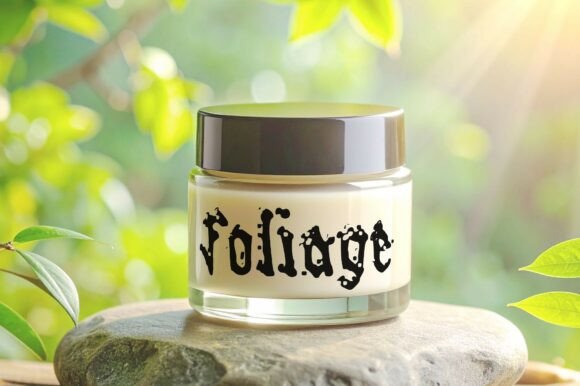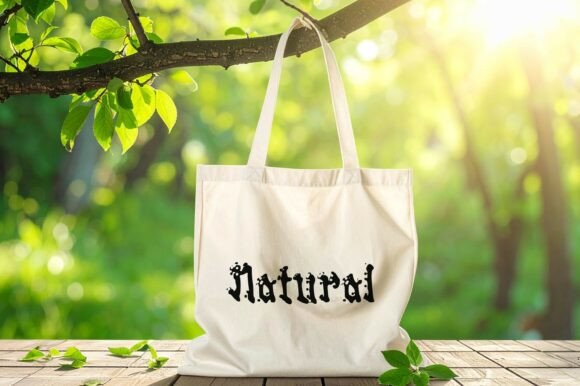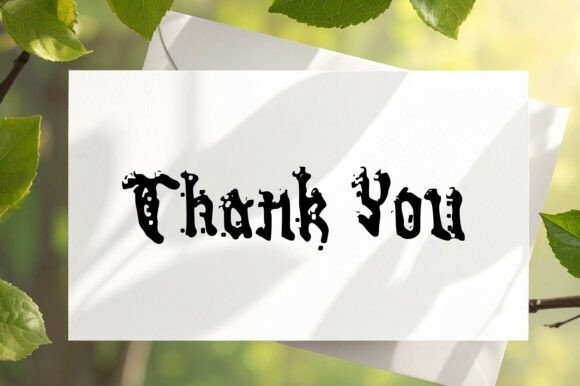
Introducing Cabang Berdaun Font: A Harmonious Blend of Modern Elegance and Natural Sophistication
In the realm of typography, few fonts manage to capture the essence of nature’s serenity and charm as effectively as the “Cabang Berdaun” font. This delectable fusion of sprightly modern flair and earthy sophistication brings to life the intricate beauty of leaf-strewn boughs, representing the exquisite curves and gentle lines that thrive in the heart of the woodlands. Whether you’re a seasoned designer or a novice venturing into the creative space, “Cabang Berdaun” is poised to become an indispensable asset in your design toolkit.
A Design Inspired by Nature
The “Cabang Berdaun” font draws its inspiration from the mesmerizing beauty of branch-strewn leaves, meticulously capturing the organic elegance that defines the natural world. Each glyph is a masterful blend of fluid lines and delicate curves, evoking a sense of tranquility and refinement. The font’s design is not merely about aesthetics; it’s about conveying a sense of harmony and balance that resonates deeply with audiences.
Beyond Aesthetics: Precision and Adaptability
What sets “Cabang Berdaun” apart from other fonts is its commitment to precision and adaptability. The font features a comprehensive suite of standard punctuation glyphs, ensuring that textual precision is never compromised. This attention to detail positions “Cabang Berdaun” firmly in the realm of perfection, making it an excellent choice for designers who demand the highest level of quality.
Built for versatility, “Cabang Berdaun” merges effortlessly with a wide range of design tools and platforms. This compatibility makes it an invaluable asset for designers seeking a font that can adapt to various creative needs. Whether you’re crafting stunning wall posters, adding a touch of finesse to nature-themed merchandise, enhancing social media graphics, or creating delightful invitations, “Cabang Berdaun” brings a breath of fresh air into every project.
The “Cabang Berdaun” font offers endless creative possibilities for designers and crafters. Its unique blend of modern elegance and natural sophistication makes it an excellent choice for:
- Wall posters and prints: Add a touch of serenity to your wall art with “Cabang Berdaun”‘s elegant glyphs.
- Nature-themed merchandise: Elevate your designs with a font that embodies the beauty of the natural world.
- Social media graphics: Bring a sense of refinement and harmony to your social media presence with “Cabang Berdaun”‘s fluid lines and delicate curves.
- Invitations and events: Create delightful invitations that reflect the beauty of nature with “Cabang Berdaun”‘s charming glyphs.
Why Choose Cabang Berdaun Font?
So, why choose “Cabang Berdaun” font for your design needs? Here are a few compelling reasons:
- Unique Design: “Cabang Berdaun” boasts a distinctive design that sets it apart from other fonts.
- Precision and Adaptability: The font’s comprehensive suite of standard punctuation glyphs and compatibility with various design tools make it an excellent choice for designers.
- Endless Creative Possibilities: “Cabang Berdaun” offers a wide range of creative possibilities, making it an invaluable asset for designers and crafters.
In conclusion, the “Cabang Berdaun” font is a game-changer for designers and crafters seeking a harmonious blend of modern elegance and natural sophistication. With its unique design, precision, and adaptability, this font is poised to become an indispensable asset in your design toolkit. Whether you’re a seasoned designer or a novice venturing into the creative space, “Cabang Berdaun” invites you to explore the limitless possibilities of typography and elevate your designs to new heights.